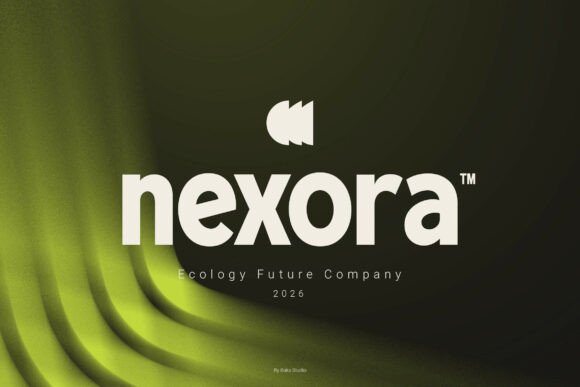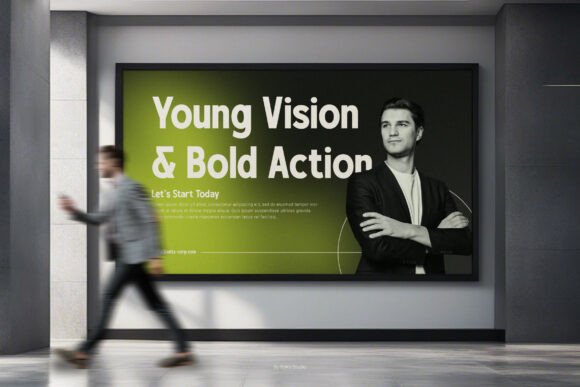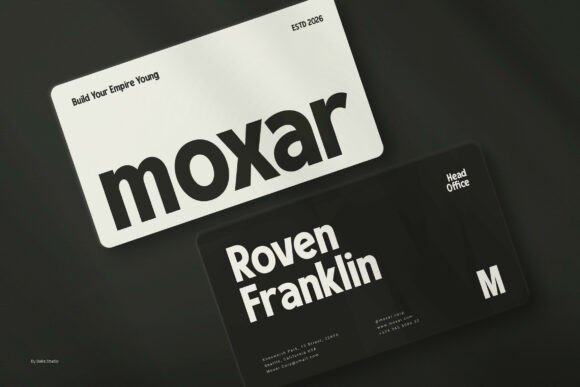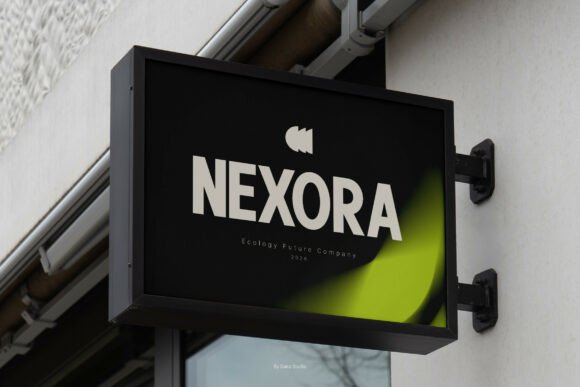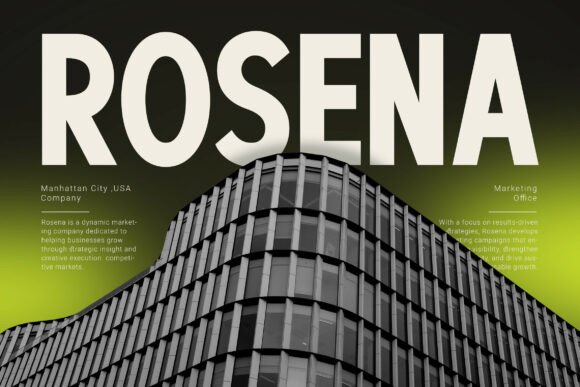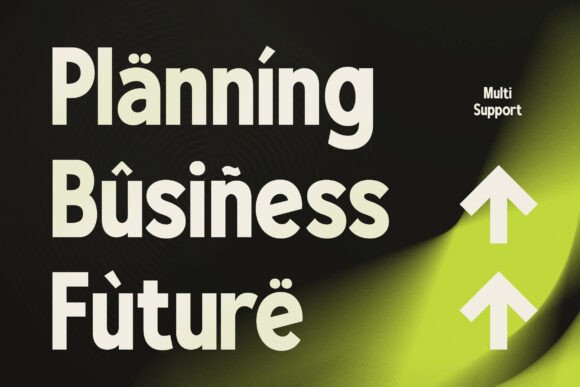
Introducing Bonta: The Ultimate Typeface for Modern Corporate Identity
In the realm of type design, creating a font that exudes modern authority and sophistication is no easy feat. However, Bonta, a heavy weight, extended sans-serif typeface, has risen to the challenge. Crafted with precision and attention to detail, Bonta is engineered to anchor premium commercial projects with an unshakeable sense of contemporary elegance.
The Design Philosophy Behind Bonta
As a type designer, the goal behind Bonta was to create a typeface that serves a singular, commanding purpose. Bonta is not just a font; it’s a statement piece designed to elevate your brand’s visual identity. Its heavy weight and extended sans-serif design make it perfect for grabbing attention and making a lasting impression.
Versatility at Its Core
Bonta’s versatility is one of its standout features. This typeface is not limited to a single application but is incredibly adaptable across various mediums. Whether you’re working on primary corporate logotypes, global branding identities, tech and startup headers, or premium editorial and cover titles, Bonta is up to the task.
Perfect Applications for Bonta
- Primary Corporate Logotypes: Use Bonta to create a bold and authoritative logo that sets the tone for your brand.
- Global Branding Identity: Bonta’s modern and clean design makes it an excellent choice for brands looking to establish a strong, global presence.
- Tech and Startup Headers: The font’s contemporary feel is perfect for tech and startup companies looking to convey innovation and forward-thinking.
- Premium Editorial and Cover Titles: Add a touch of sophistication to your editorial projects with Bonta’s bold and elegant design.
- Marketing Materials and Presentations: Make your marketing materials and presentations stand out with a font that demands attention.
- Clean, Bold, and Contemporary Design Projects: Bonta is ideal for any project that requires a clean, bold, and contemporary typeface.
Why Choose Bonta?
Bonta offers several advantages that make it an attractive choice for designers and brands alike. Its heavy weight ensures that your text is always visible and impactful, even at smaller sizes. The extended sans-serif design adds a level of sophistication and modernity that is hard to achieve with other typefaces.
The Benefits of Using Bonta
- Authority and Sophistication: Bonta’s design exudes an unshakeable sense of modern authority and sophistication.
- Legibility: Despite its heavy weight, Bonta maintains excellent legibility, making it suitable for a wide range of applications.
- Versatility: From digital interfaces to print materials, Bonta performs exceptionally well across different mediums.
- Uniqueness: Bonta’s distinctive design ensures that your brand stands out from the competition.
| Font Name | Bonta Font |
| Author | Bagus Kunstler |
Bonta is more than just a typeface; it’s a tool for designers and brands to convey their message with authority, sophistication, and modernity. Its versatility, combined with its bold and elegant design, makes it an excellent choice for a wide range of applications. Whether you’re working on a corporate branding project, a tech startup, or a premium editorial piece, Bonta is sure to meet your needs.